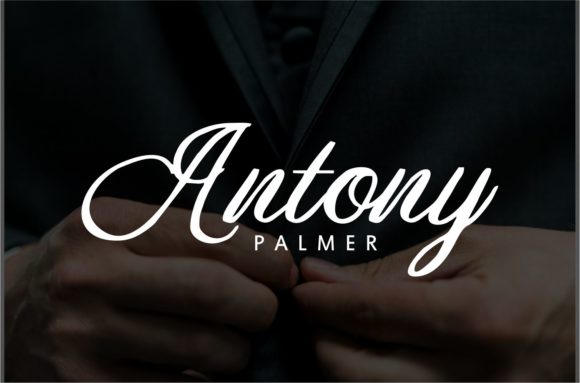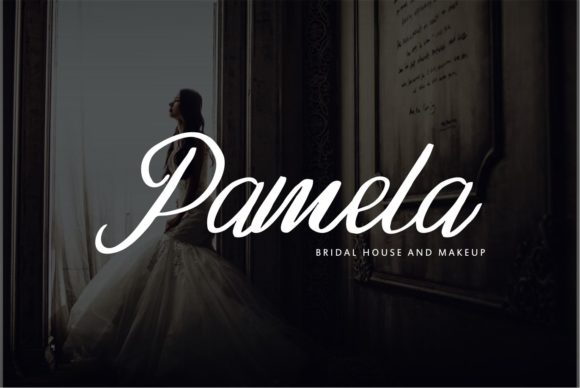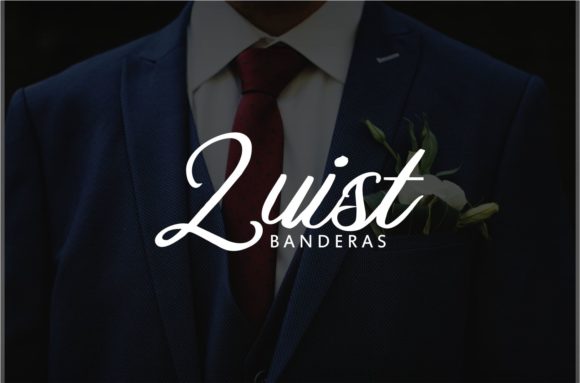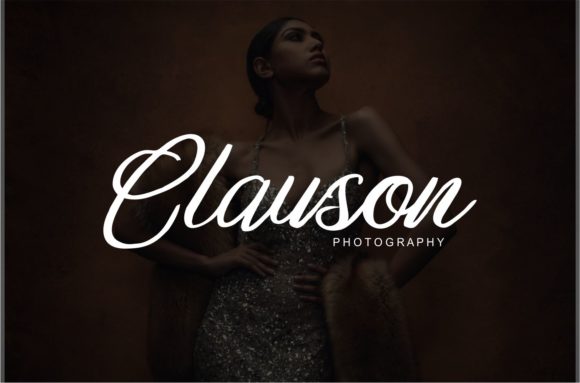
Emerland Font
About Emerland Font
Emerland is a strikingly elegant handwritten font with a unique feel. It will add a level of authenticity to any design project.